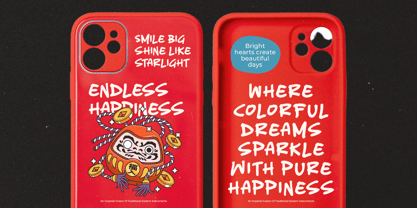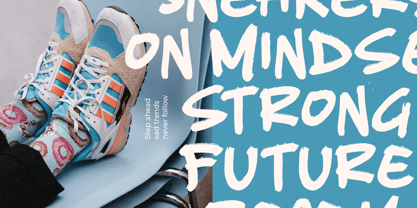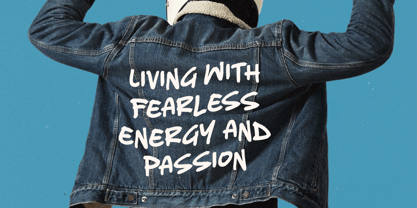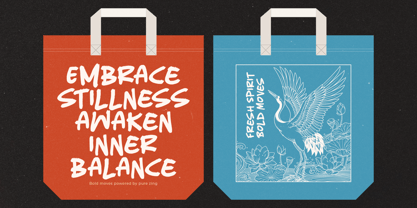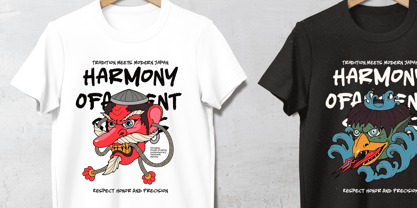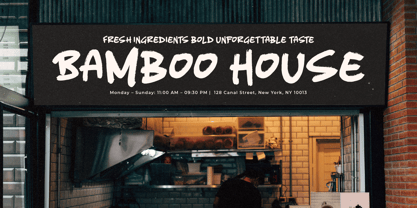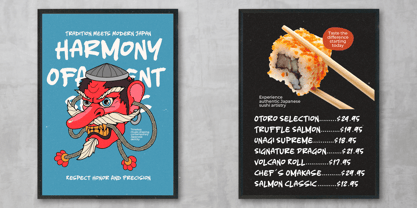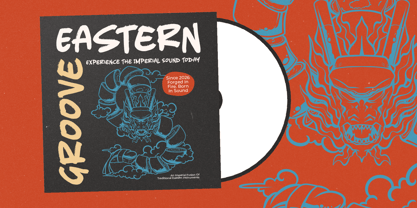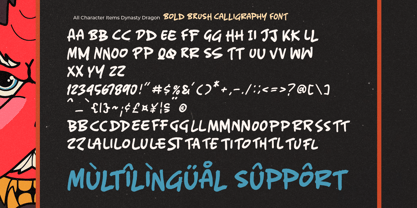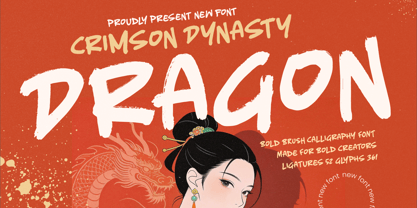
Dynasty Dragon
by Stylishtype Studio
The Dynasty Dragon Font Family was designed by Heru Utama Putra and published by Stylishtype Studio. Dynasty Dragon contains 2 styles and family package options. More about this family
Dynasty Dragon is a bold brush calligraphy font designed for creators who want to make a powerful and unforgettable statement. Inspired by expressive ink strokes and dynamic brush movement, this typeface delivers raw energy, strong character, and confident visual impact. Its textured edges and handcrafted feel make it perfect for posters, branding, packaging, book covers, gaming graphics, Asian-inspired themes, and bold editorial headlines. Featuring 52 ligatures and 361 glyphs, Dynasty Dragon offers versatile letter combinations and smooth stylistic flow for striking compositions. Whether used for modern branding or dramatic visual storytelling, this font brings intensity, artistry, and fearless personality to both print and digital designs.